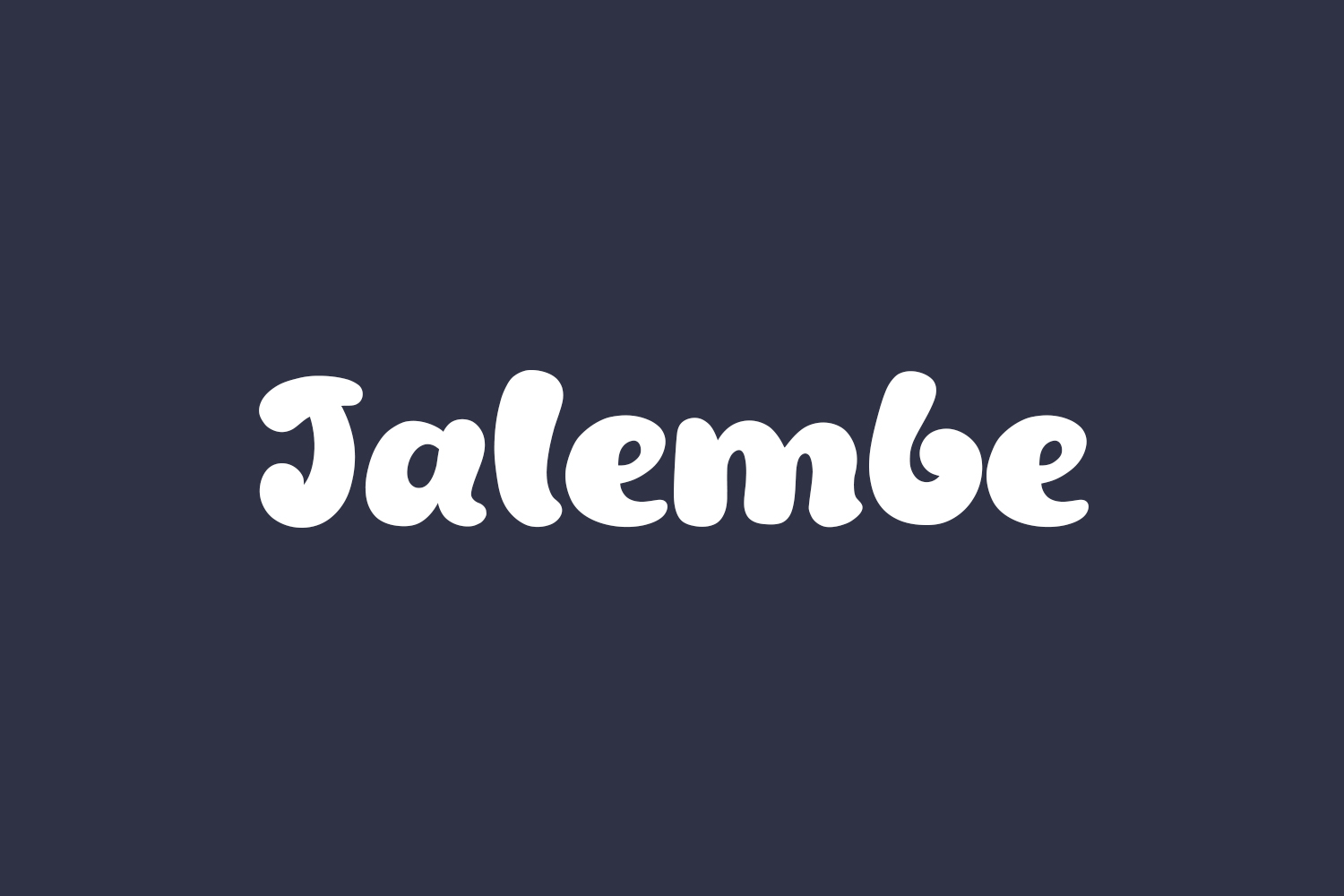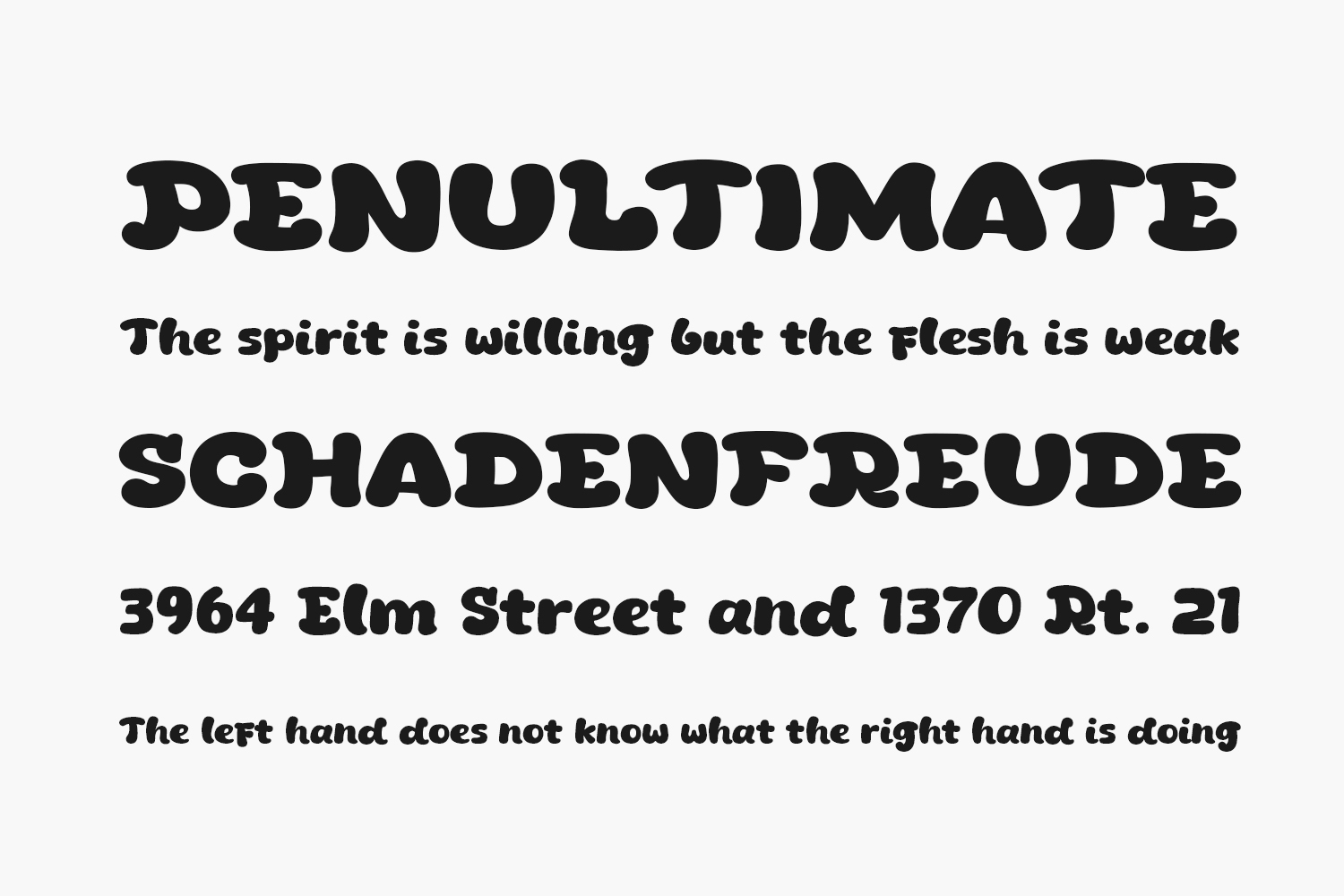
Explore the sophistication of Jalembe Free Font – a contemporary and stylish display font designed to enhance your posters, logos, magazines, book covers, banners, and more! Elevate your designs with this exceptional font, perfectly suited for a diverse range of projects. Acquire this remarkable font now and witness how it effortlessly brings your creative ideas to life, making them truly stand out. Jalembe Free Font was designed by Khurasan and is free for personal or commercial use.